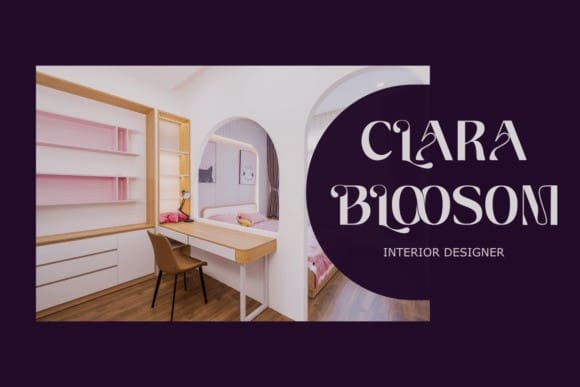
Lagistha Font
Lagistha Font is a delightful blend of elegance and charm, designed for eye-catching display purposes. Its stylish curves and intricate details exude sophistication, while its balanced letterforms offer legibility and versatility. Perfect for branding, packaging, and invitations, Lagistha adds a touch of refinement to any project.